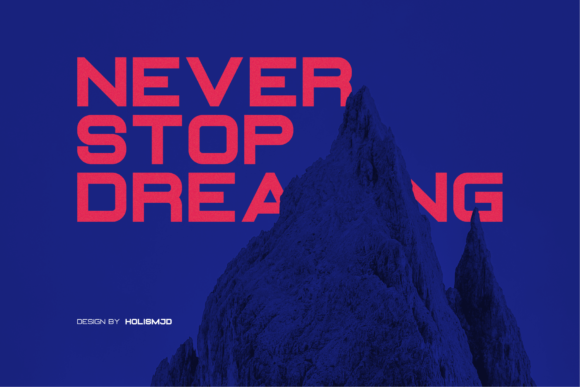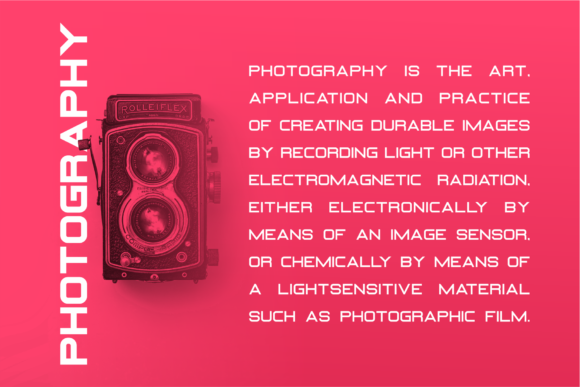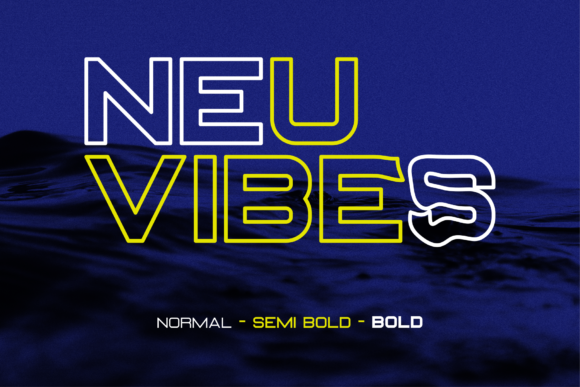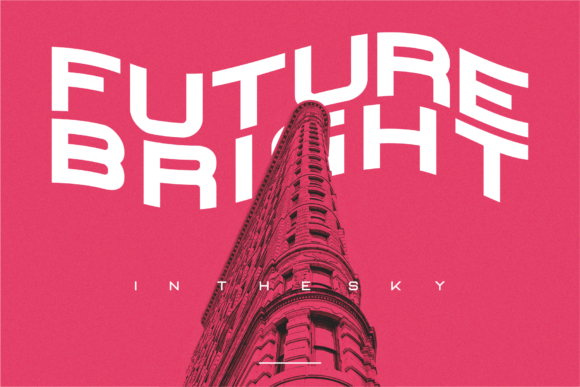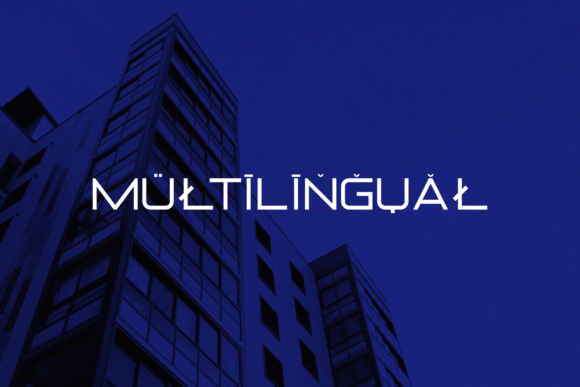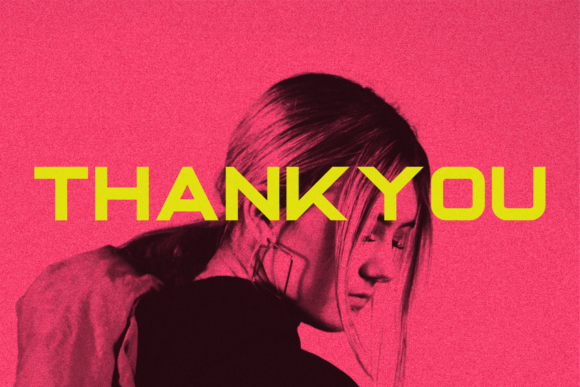
The Birth of a Design Icon: Chance Font
Have you ever been stuck in a creative rut, staring at a blank canvas or screen, desperately searching for that one element to bring your design to life? We’ve all been there. But what if I told you that the key to unlocking your next masterpiece lies in the simplicity and elegance of a single font?
Enter Chance Font, a bold and modern sans serif font that’s poised to revolutionize the world of design. With its clean lines and minimalist aesthetic, Chance Font is the perfect companion for any design project. Whether you’re a seasoned pro or just starting out, this versatile font is sure to elevate your creations and make them stand out from the crowd.
As a valuable addition to any designer’s toolkit, Chance Font offers a level of flexibility and expressiveness that’s hard to find in other fonts. Its modern feel and sleek design make it the perfect choice for anything from logos and branding to web design and editorial content.
Chance Font Key Features
- Font Family: Chance Font is a sans-serif font family.
- Font Size: The font family includes weights ranging from Thin to Black, with sizes from 100 to 900.
- Resolution: Suitable for use at high resolutions, including Retina displays.
- Unique Characteristics: Chance Font features a clean, modern design with a unique geometric feel, making it ideal for digital interfaces and branding.
Designer Review: Chance Font
Overall, I think Chance Font has some great qualities, but it also has some limitations that might make it less suitable for certain projects.
- Chance Font has a unique and modern aesthetic that’s perfect for trendy brands and websites.
- The font is highly customizable, allowing designers to adjust the weight, width, and other parameters to suit their needs.
- Chance Font is a great choice for body text, as it’s clear and readable even at small font sizes.
- The font can be quite bold and overwhelming, making it difficult to use in situations where subtlety is key.
- Chance Font doesn’t have a lot of variations in terms of style and tone, which might limit its versatility.
- The font might not be the best choice for projects that require a more classic or timeless look.
Chance Font is a solid choice for designers who want a modern and eye-catching font, but it’s not a one-size-fits-all solution. With some careful consideration and customization, it can be a great addition to a project, but it’s not ideal for every situation.
Tips for Getting the Most Out of Chance Font
For optimal results, use the Chance Font in conjunction with bold and italic styles. Experiment with different font sizes and colors to create a visually appealing design. Additionally, consider pairing the Chance Font with other fonts to create a unique and eye-catching design.
The Chance Font is ideal for creative and artistic projects, such as posters, flyers, and social media graphics. It’s also suitable for use in titles, headings, and other text elements where a unique and attention-grabbing font is desired.
Alternatives to Chance Font for Designers
Great Vibes is a modern, cursive script font ideal for creating a playful and elegant look. It’s perfect for headings, titles, and quotes that require a touch of sophistication. Compared to Chance Font, Great Vibes has a more refined and elegant feel, making it suitable for high-end designs and branding materials.
Pacifico is a beautiful, handwritten font that exudes a sense of relaxation and calmness. It’s ideal for designs that require a soft, organic feel, such as travel brochures, menus, and wedding invitations. Unlike Chance Font, Pacifico has a more casual and laid-back vibe, making it perfect for designs that aim to evoke a sense of serenity.
Alex Brush is a elegant, handwritten font that combines a touch of sophistication with a hint of whimsy. It’s perfect for designs that require a unique and creative look, such as book covers, posters, and editorial content. Compared to Chance Font, Alex Brush has a more refined and artistic feel, making it suitable for designs that aim to evoke a sense of creativity and imagination.